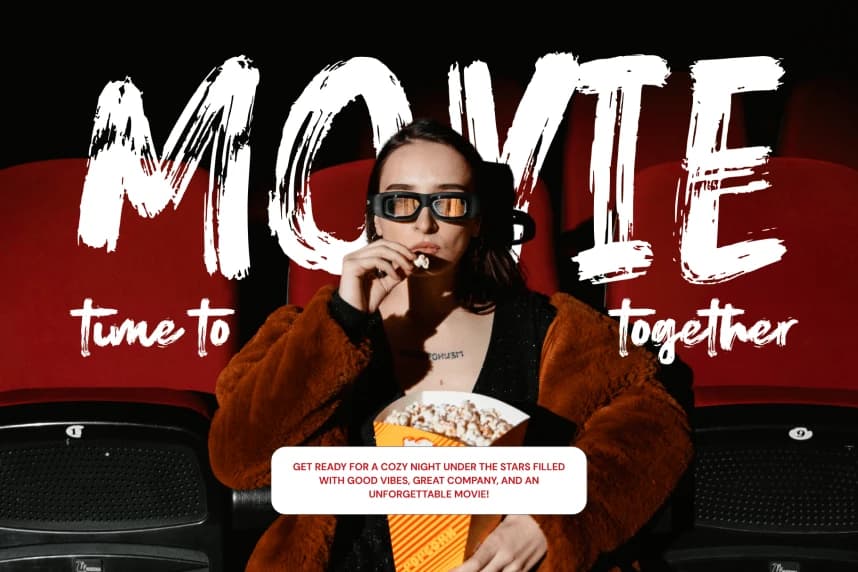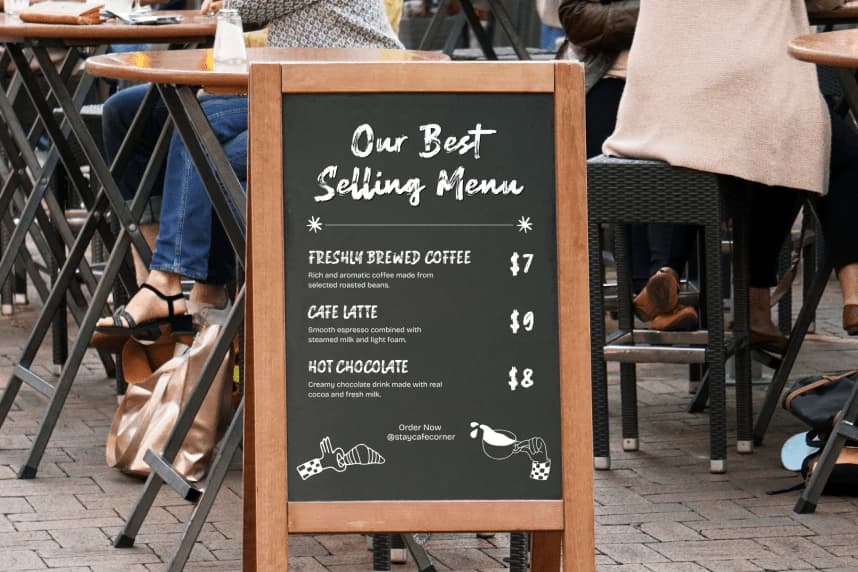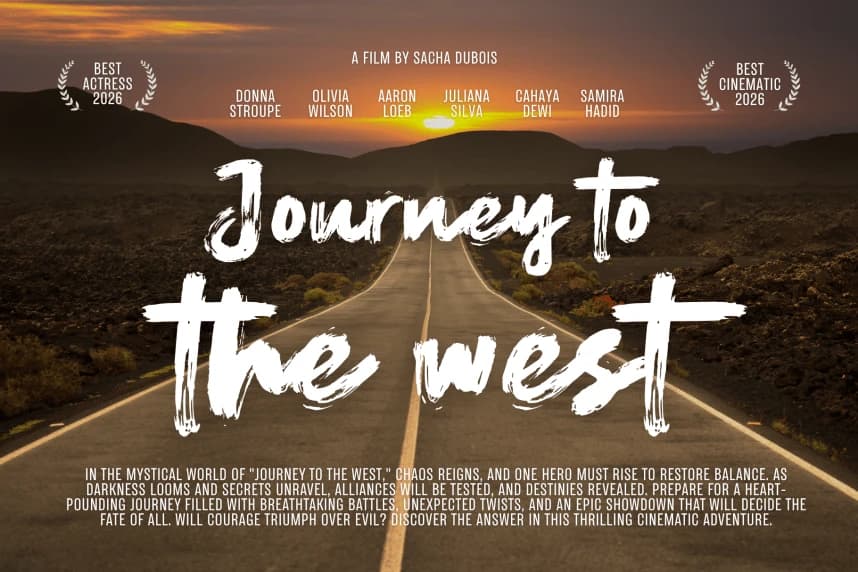
Wonder Glow – Brush Script Font is a bold brush script font that captures the beauty of authentic hand-drawn strokes. Crafted with real brush inspiration, this font delivers a natural, expressive, and organic feel in every letter.